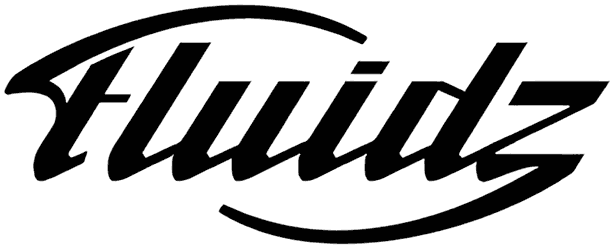
It’s inspired by the inscriptions of ancient Greek and Roman and has been able to find its place in modern culture to make a quick impression. Although this digital font doesn’t include numbers, it is a great option for you if you want your design to make noise and attract all eyes.